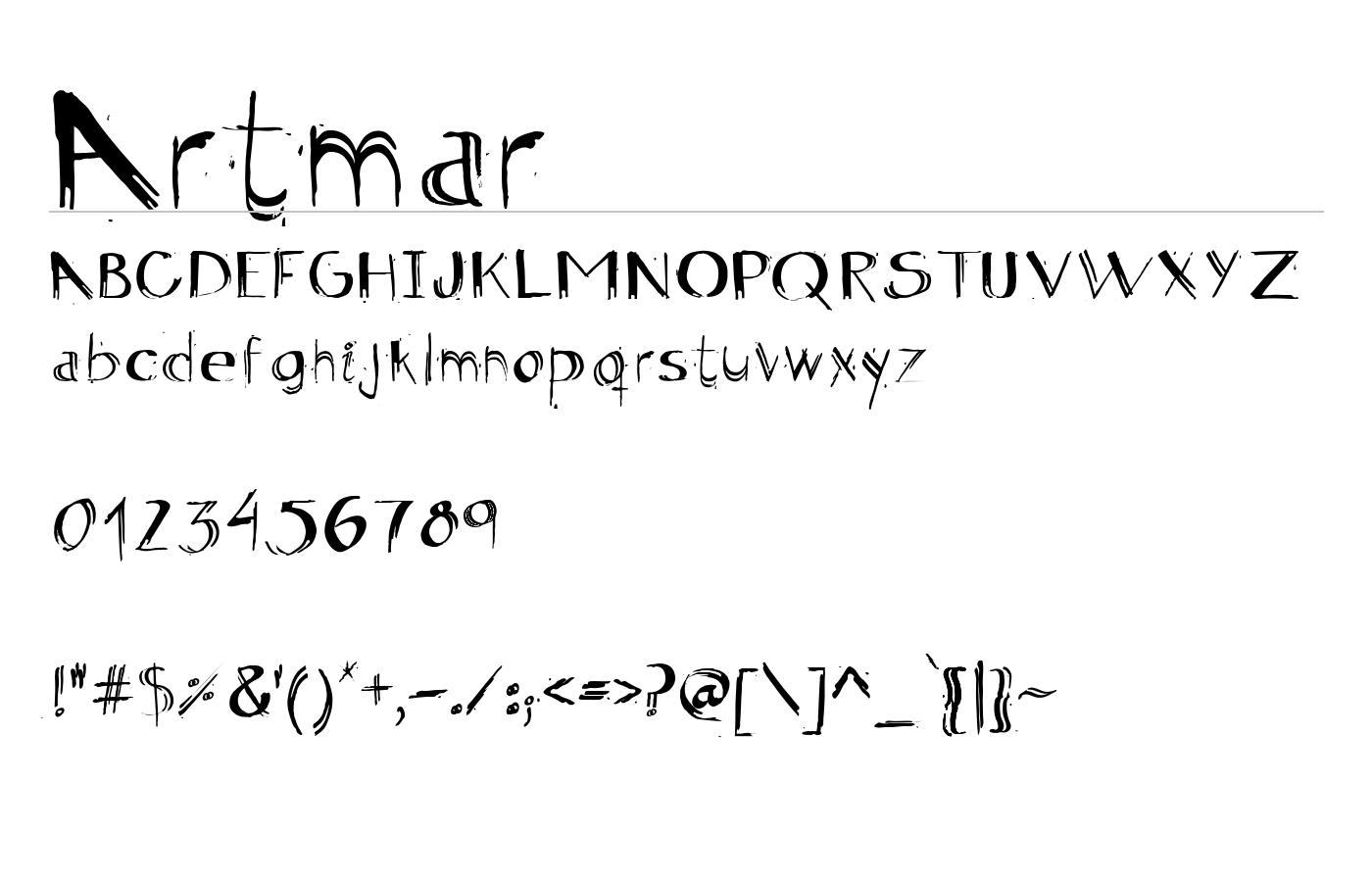
Artmar is a distinctive serif font with an artistic, hand-drawn feel, combining irregular strokes and varied contrast that create a quirky and expressive character. Its slightly uneven letterforms and textured edges make it perfect for creative projects seeking a unique, whimsical touch, such as art posters, children’s books, or branding that values individuality and playfulness. This font stands out best in headings or display uses where personality and visual interest are key.
Artmar Font